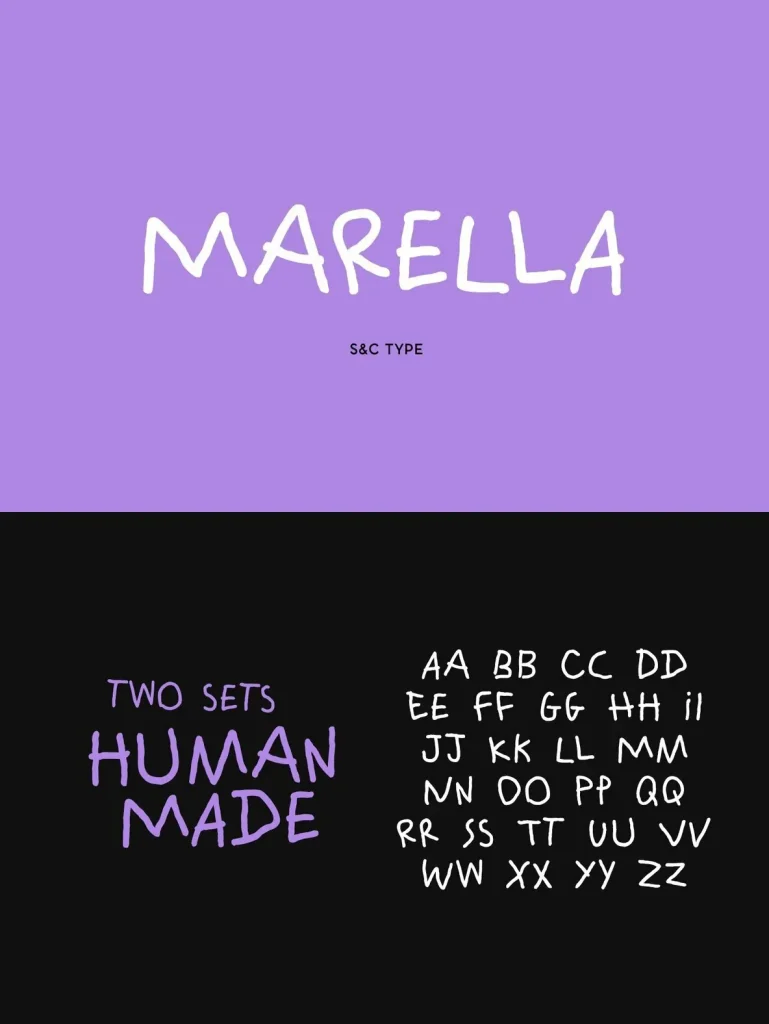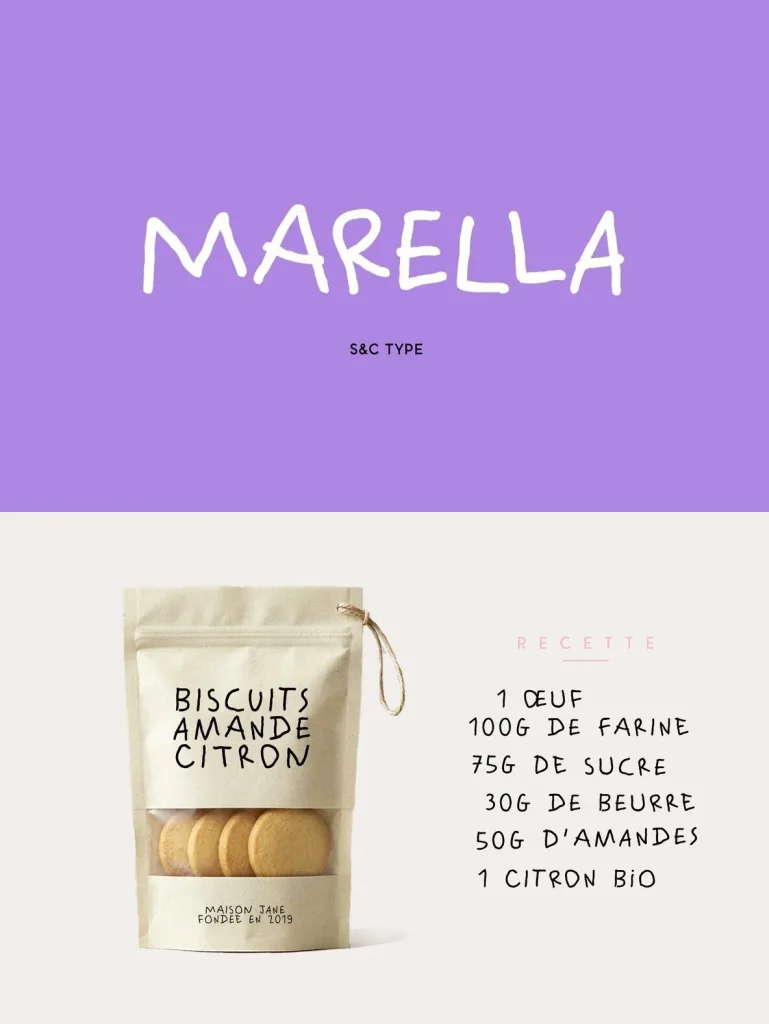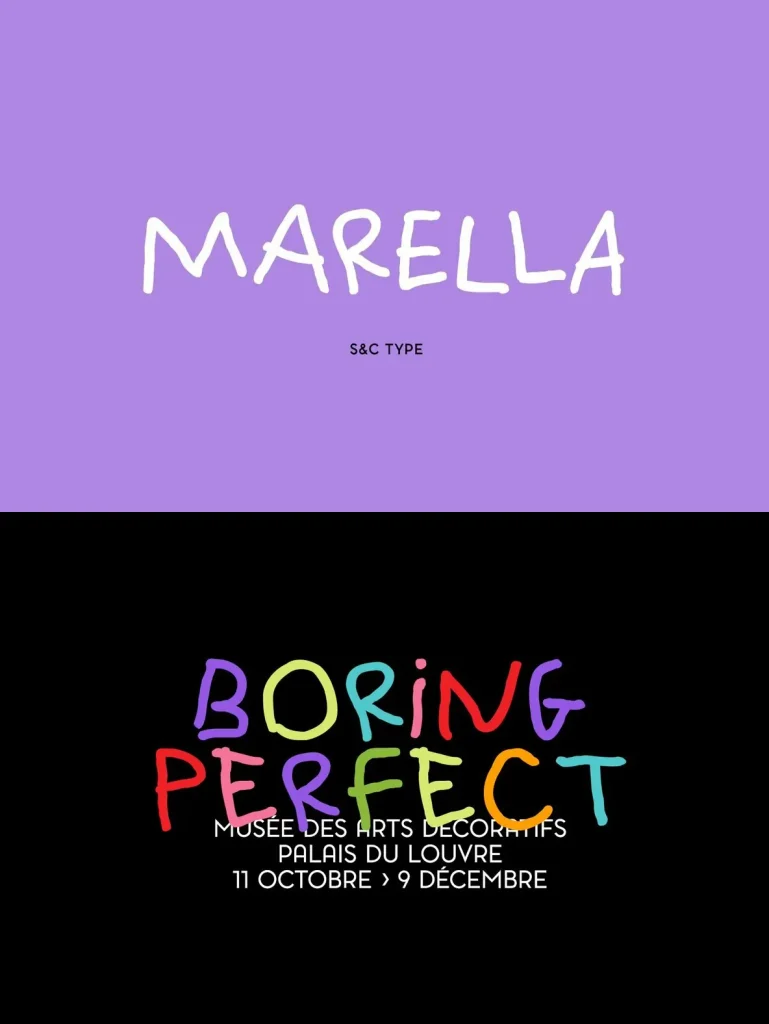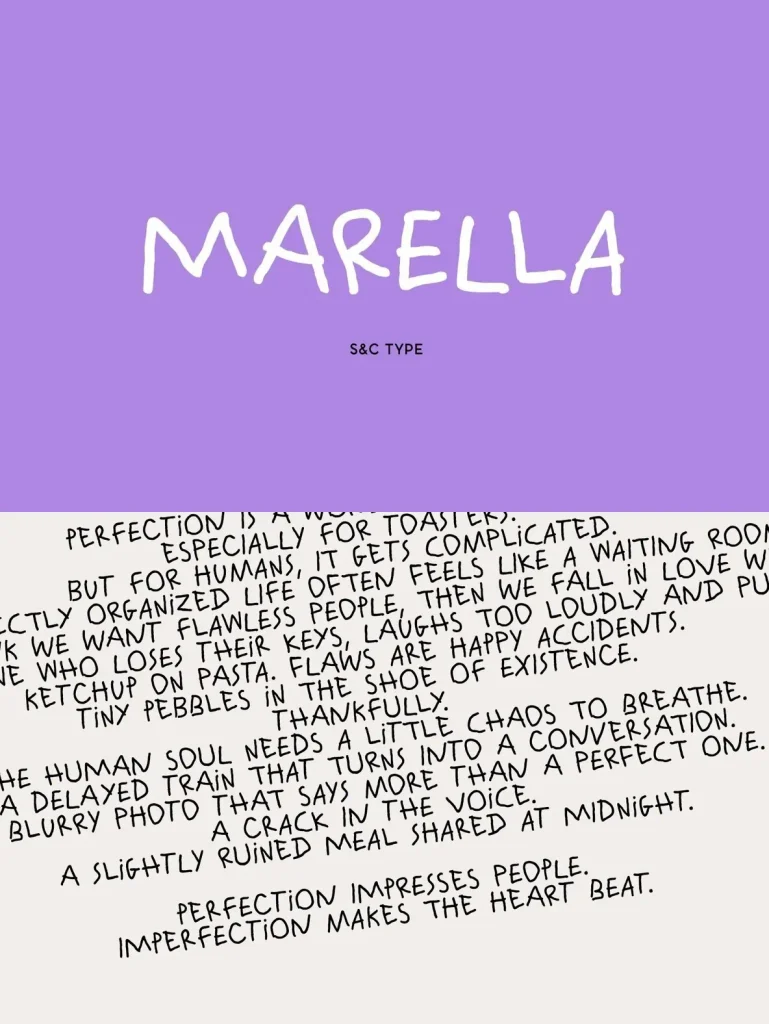
Marella — Marker Rhythm, Human Touch
Marella is an authentic, all-caps handwritten typeface by Fanny Coulez. Its irregular lines and dancing rhythm give each word the spontaneous energy of a marker on paper. Expressive and direct, this font keeps a natural handmade feel while staying clear and useful for design work that needs warmth, personality, and a visible human hand.
To support an organic, hand-made style, Marella includes alternate letters in lower and upper cases, helping avoid repetition across words and layouts. Use it to bring an artisanal touch to lifestyle packaging, a friendly vibe to food branding, or a rebellious edge when paired with classic layouts. It is a confident human-made choice for designs that need to stand out. Hope you will enjoy. Merci beaucoup.